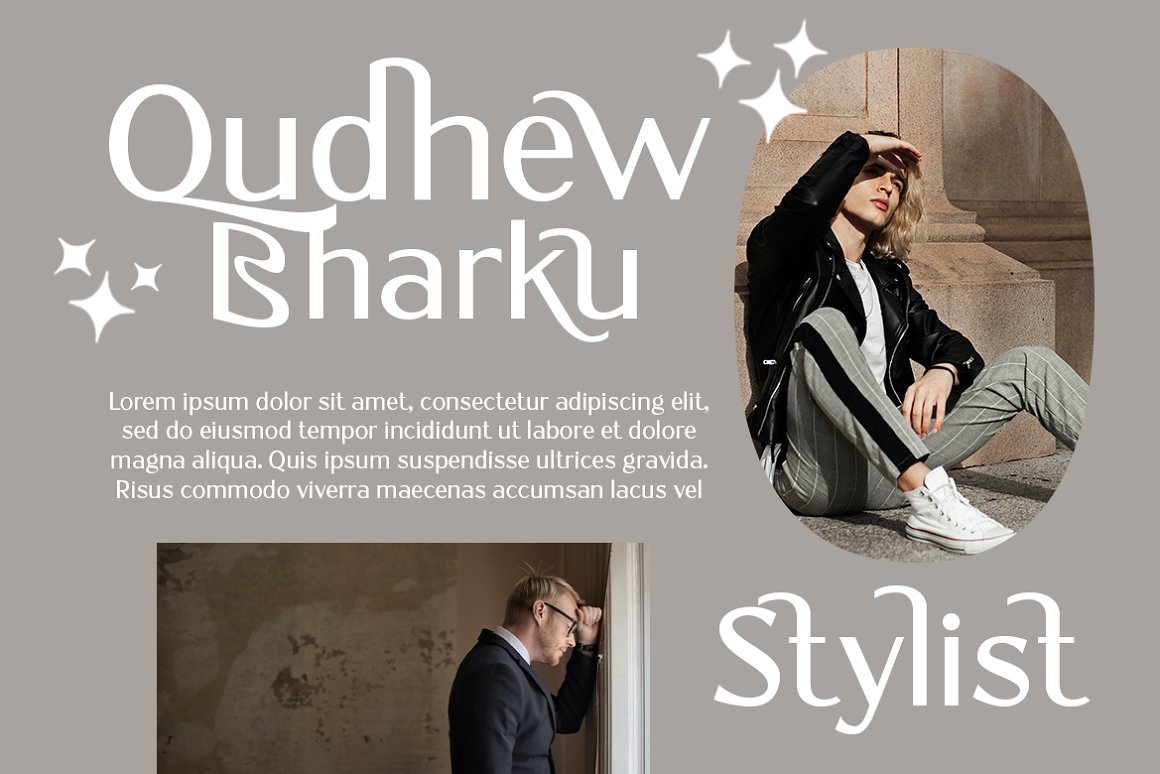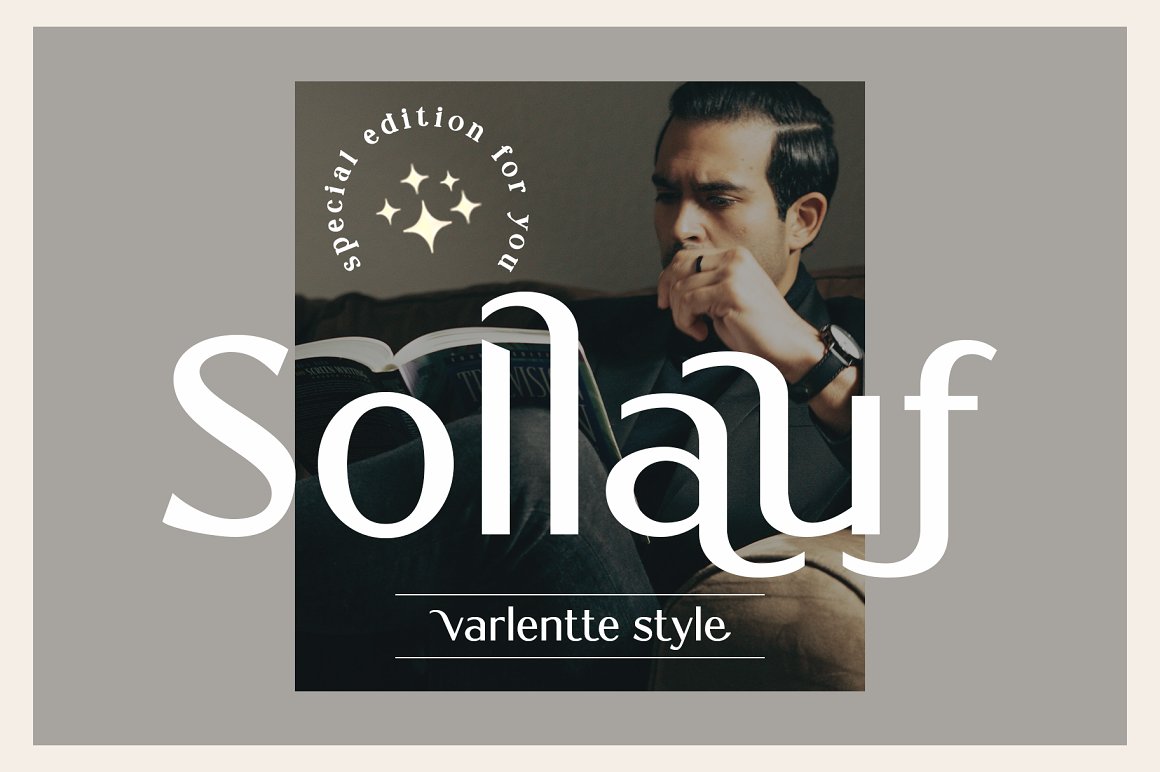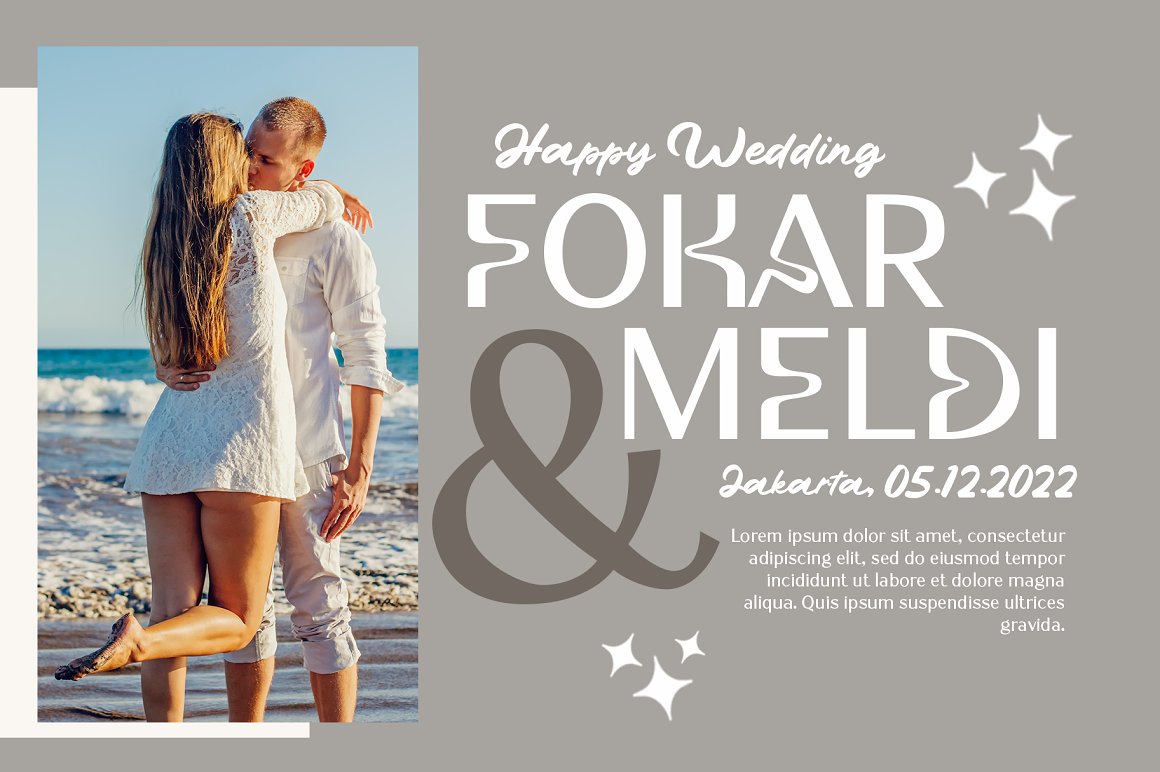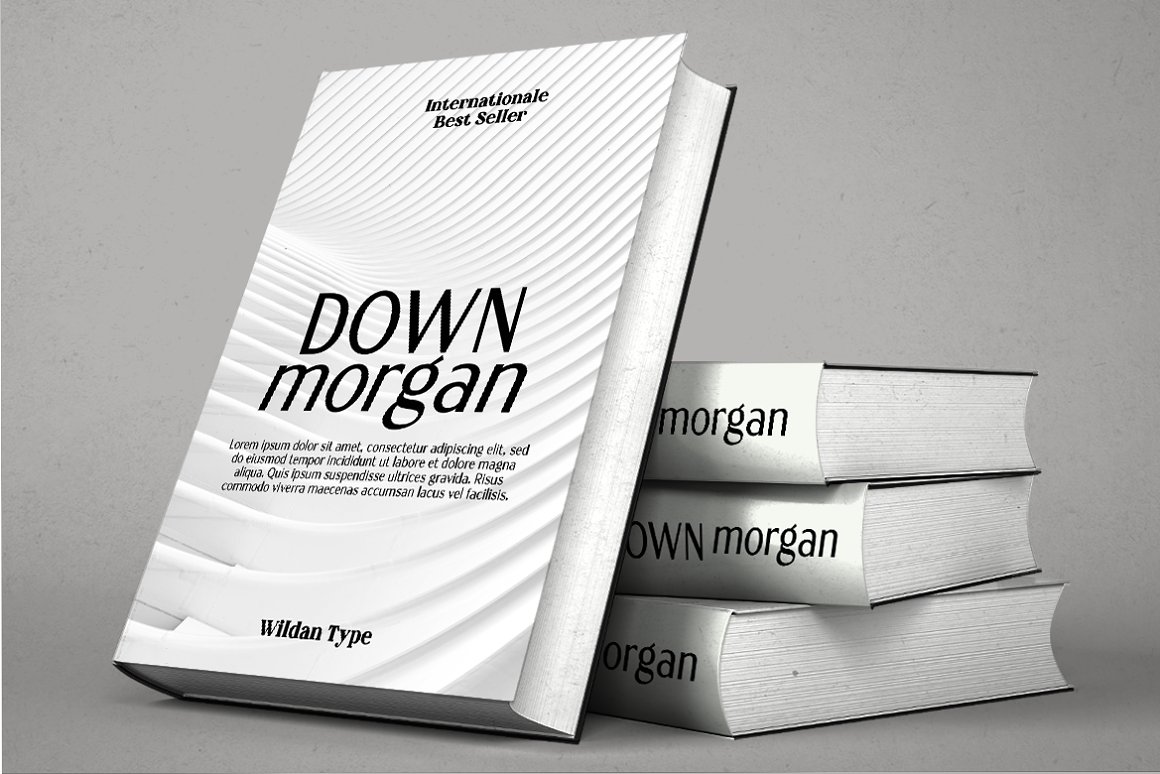
Adegoke Serif Font
This is a sans serif font, designed with contrasting countur differences. Gives a simple impression with a thick serif flavor. Some alternative characters are available to give each user freedom in creating headings such as magazines, posters or brands. While the basic character can be used as body text. This font family is also available in oblique style to add variety of users.